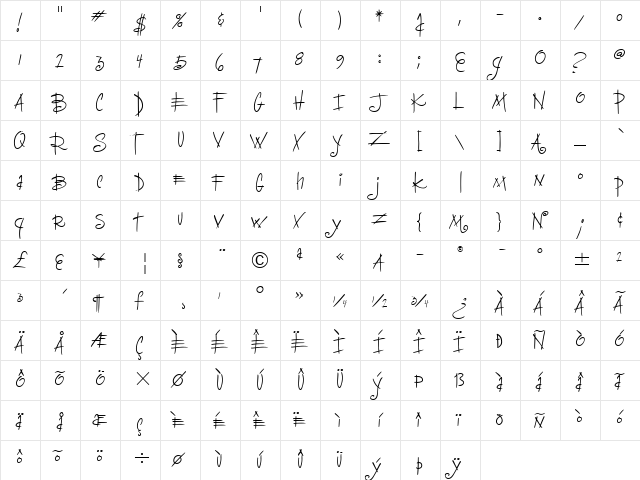
Deelirious ITC Light Font Preview
Deelirious ITC Light
Deelirious ITC Light Font Details
| Foundry | International Typeface Corporation |
Design Context for Deelirious ITC Typeface
Deelirious ITC is a composed and adaptable typeface that performs quietly and consistently across a wide range of design contexts. Its slender proportions lend an understated elegance to any composition.